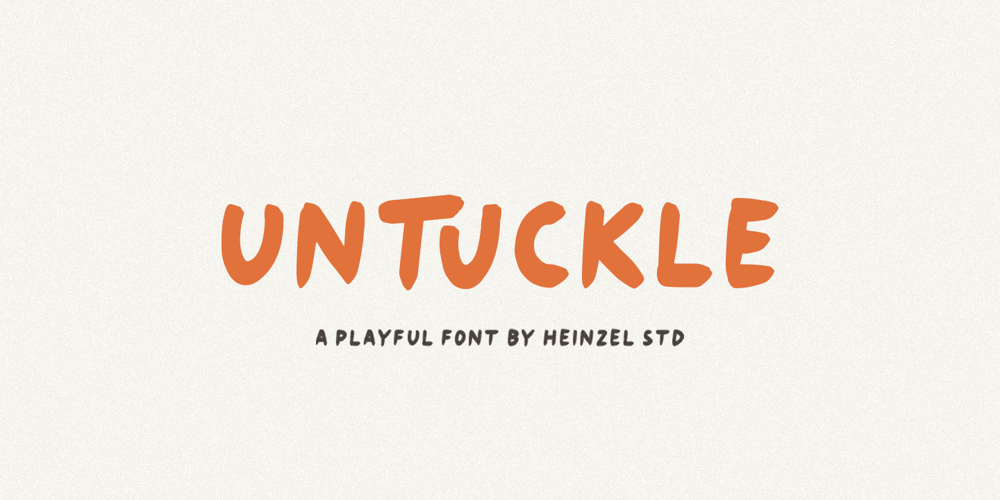
Untuckle Font Family was designed by Nofi Sofyan Hadi and published by Heinzel Std. Untuckle contains 1 styles and family package options. Untuckle is a playful and natural handwritten font. This font is perfect for creating logos, watermarks, branding, wedding invitations, quotes, taglines, or anything else. Let’s make something beautiful project with this.